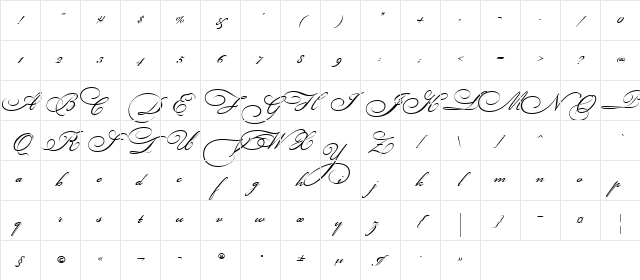
Bickham Script Three Regular
Foundry: Gophmann A.L.
Designer: Gophmann A.L.
Bickham Script Three flows with the natural rhythm of handwritten lettering, making it ideal for designs that call for warmth and personal expression.
Font Pairing: Combine Bickham Script Three with a simple geometric sans for maximum contrast - the tension between flowing curves and clean structure is a classic typographic pairing.
Pro Tip: Use Bickham Script Three for short runs of text - names, titles, or taglines. Extended body copy in script faces tires the eye quickly.